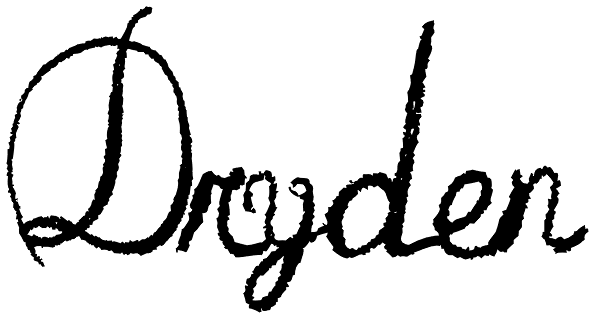
Dryden
Dryden is a distressed typeface perfect for a rough-hewn handwritten effect. Perhaps more impressive is the included ornaments set, which is designed to pair nicely with the text-weight font.
Dryden Ornaments
Dryden